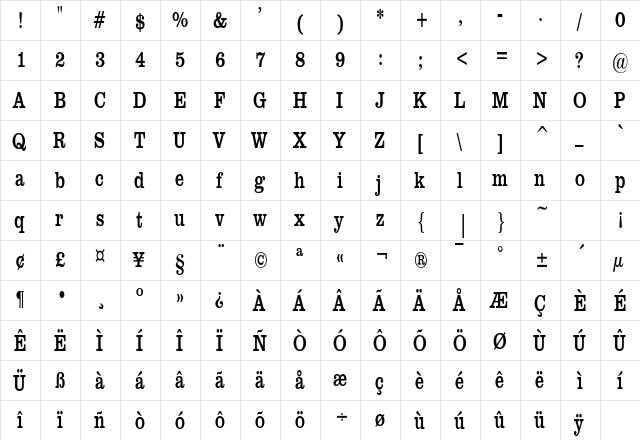
GettysburgCondensed Regular
Design Context for GettysburgCondensed Typeface
GettysburgCondensed offers clean, dependable letterforms without strong stylistic allegiance, making it a practical choice for designers who need flexibility. Its narrow stance lets it pack a punch even in space-constrained designs.